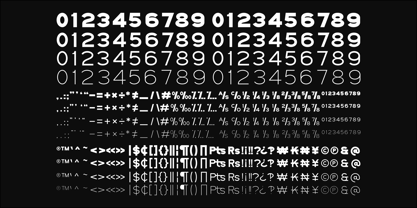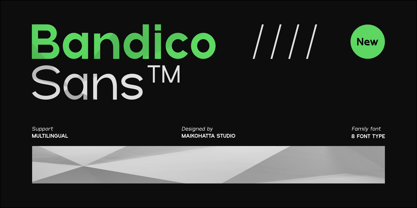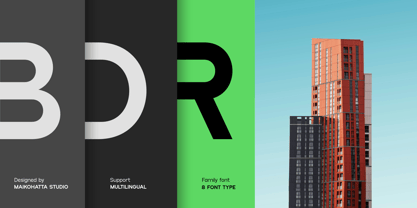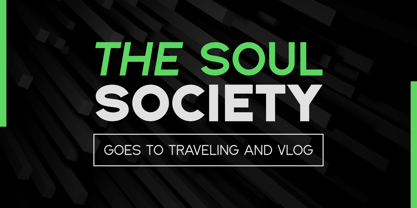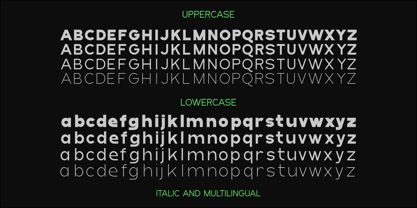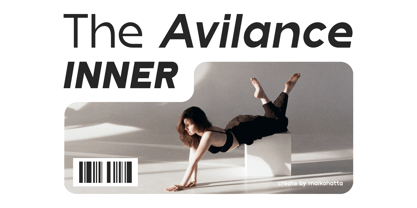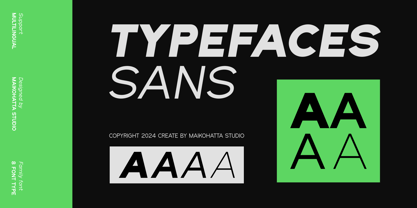
Bandico
by Maikohatta
The Bandico Font Family was designed by Gilang Ternadho and published by Maikohatta. Bandico contains 8 styles and family package options.
Introducing our new product Bandico - Modern Sans Serif Typeface
A sans-serif font family available in various styles is a highly versatile choice for graphic design and clean, modern text displays. This sans-serif font family offers flexibility in graphic design, and its various styles allow you to customize the appearance of text to suit your project's needs. With various combinations, you can create attractive and easy-to-read text displays in various contexts.
Bandico